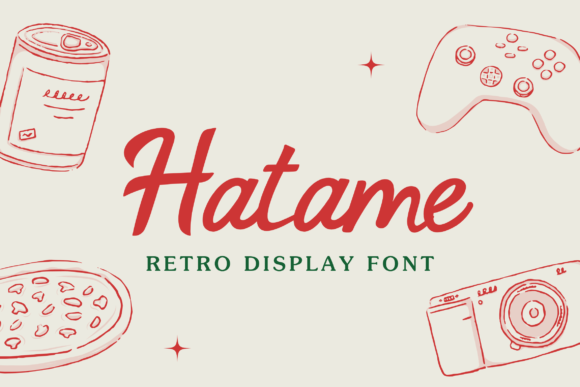
Unleash the Charm of Handwritten Notes in Your Designs
Remember the joy of receiving a handwritten note from a loved one? The feeling of warmth and thoughtfulness it brings is hard to replicate with digital communication. As designers, we’re always on the lookout for ways to add a personal touch to our creations. That’s where Hatame Font comes in – a charming handwritten font that captures the essence of a handwritten note on a sunny morning.
With its gentle curves and friendly demeanor, Hatame Font is perfect for adding a personal touch to invitations, greeting cards, and cozy branding projects. Its value lies in its ability to evoke emotions and create a sense of connection with the audience. For designers, Hatame Font is a valuable asset in their toolkit, offering a unique way to express themselves and convey a message that’s both heartfelt and effective.
Key Features of Hatame Font
- Font Family: Hatame Font is a unique, handwritten font with a Persian and Arabic influence, suitable for various design projects.
- Character Count: The font includes a wide range of characters, including uppercase and lowercase letters, numerals, and punctuation marks.
- Language Support: Designed to support Persian, Arabic, and Latin languages, making it a versatile choice for multilingual designs.
- Unique Characteristics: Hatame Font features intricate, hand-drawn lines and subtle imperfections, giving it a personal and artistic touch.
Hatame Font Review
After diving into the Hatame Font, I have to say that it has some really interesting aspects to it ✨. The first thing that caught my attention was the unique blend of modern and vintage elements. The font’s structure and the way it handles different character sets are quite impressive. It’s also great to see that the font comes in a range of weights, from light to bold, making it perfect for various design applications.
The font’s OpenType features are also a major plus ✨. It includes some really cool things like ligatures, swashes, and alternate characters, which can add a lot of personality to your designs. Additionally, the font is highly customizable, allowing designers to fine-tune the settings to suit their specific needs.
- ⚠️ The font may not be the best choice for small text sizes due to its relatively large x-height.
- ⚠️ Some users may find the font’s unique style a bit too bold or overwhelming, especially for more subtle designs.
- ⚠️ The font’s performance may be affected by its complex structure, which could lead to slower rendering times.
Overall, I think the Hatame Font is a solid addition to any designer’s toolkit. While it may have some limitations, its unique style and features make it a great choice for designers looking to add some personality to their work. With a bit of creativity and experimentation, the Hatame Font can really shine ✨.
For the most out of Hatame Font, use it for creative and artistic projects, such as:
- Typography-based designs
- Infographics
- Book covers and title pages